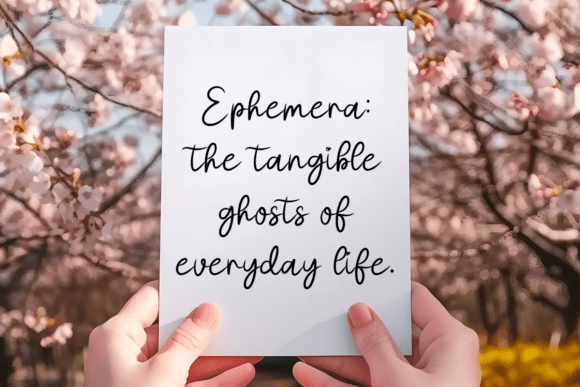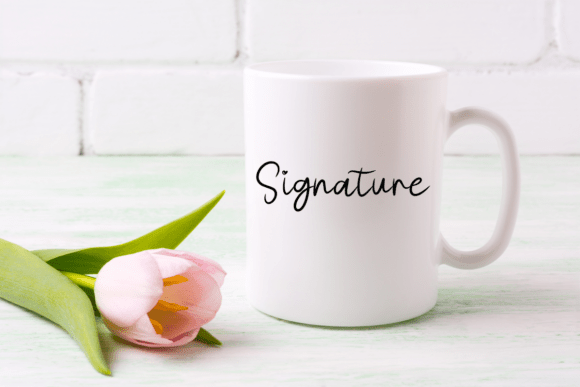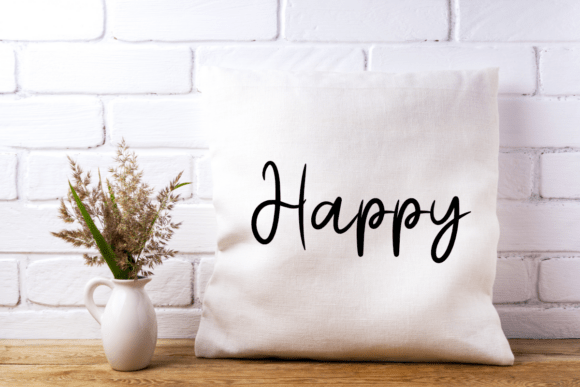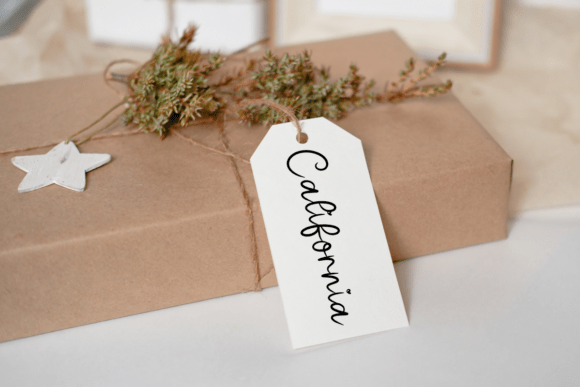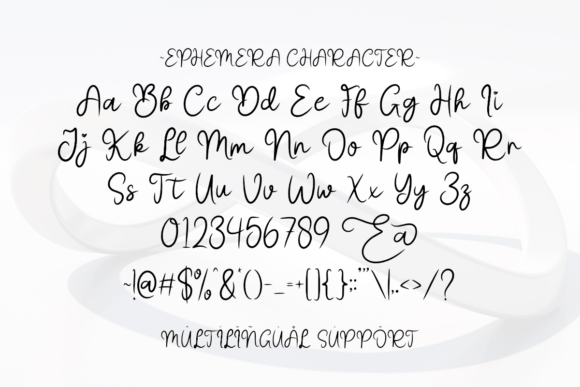
Introducing Ephemera: The Modern Handwritten Script Font for Crafters and Designers
In the world of typography, fonts play a crucial role in conveying the tone and personality of a brand or project. For crafters and graphic designers, finding the perfect font can be a daunting task. However, with the introduction of Ephemera, a new handwritten script font, the search is over. Ephemera is a modern, elegant, and stylish typeface that adds a personal touch to any project.
What is Ephemera Font?
Ephemera is a carefully crafted handwritten script font that exudes a sense of sophistication and charm. Its modern touch makes it perfect for a wide range of applications, from creating beautiful invitations and branding materials to adding a personal touch to digital designs. The font’s unique and flowing strokes give it a distinctive feel that sets it apart from other fonts in the same category.
Key Features of Ephemera Font
- Handwritten Script: Ephemera boasts a beautiful handwritten script that adds a touch of elegance and sophistication to any project.
- Modern Touch: The font’s modern design ensures that it stays ahead of the curve, making it perfect for contemporary designs.
- Highly Versatile: Ephemera is suitable for a wide range of applications, including invitations, branding, packaging, and more.
- Easy to Read: The font’s clear and flowing strokes make it easy to read, even at smaller sizes.
Why Choose Ephemera Font?
Ephemera is more than just a font; it’s a design solution that can elevate your projects to the next level. Here are some reasons why you should choose Ephemera:
- Unique and Distinctive: Ephemera’s unique design ensures that your projects stand out from the crowd.
- Time-Saving: The font’s versatility and ease of use save you time and effort, allowing you to focus on other creative aspects of your project.
- Professional Results: Ephemera’s high-quality design ensures that your projects look professional and polished.
How to Use Ephemera Font in Your Designs
Ephemera is an incredibly versatile font that can be used in a variety of design applications. Here are some ideas to get you started:
- Invitations: Create beautiful wedding invitations, birthday cards, and other celebratory designs with Ephemera.
- Branding: Use Ephemera to create a unique and memorable brand identity for your business or client.
- Packaging: Add a touch of elegance to your product packaging with Ephemera.
- Digital Designs: Use Ephemera in your digital designs, such as social media graphics, blog posts, and more.
Tips for Getting the Most Out of Ephemera Font
To get the most out of Ephemera, here are some tips to keep in mind:
- Experiment with Sizes: Ephemera looks great at a variety of sizes, so don’t be afraid to experiment to find the perfect fit for your project.
- Pair with Other Fonts: Combine Ephemera with other fonts to create a unique and visually appealing design.
- Use in Combination with Images: Pair Ephemera with high-quality images to create a stunning design that grabs attention.